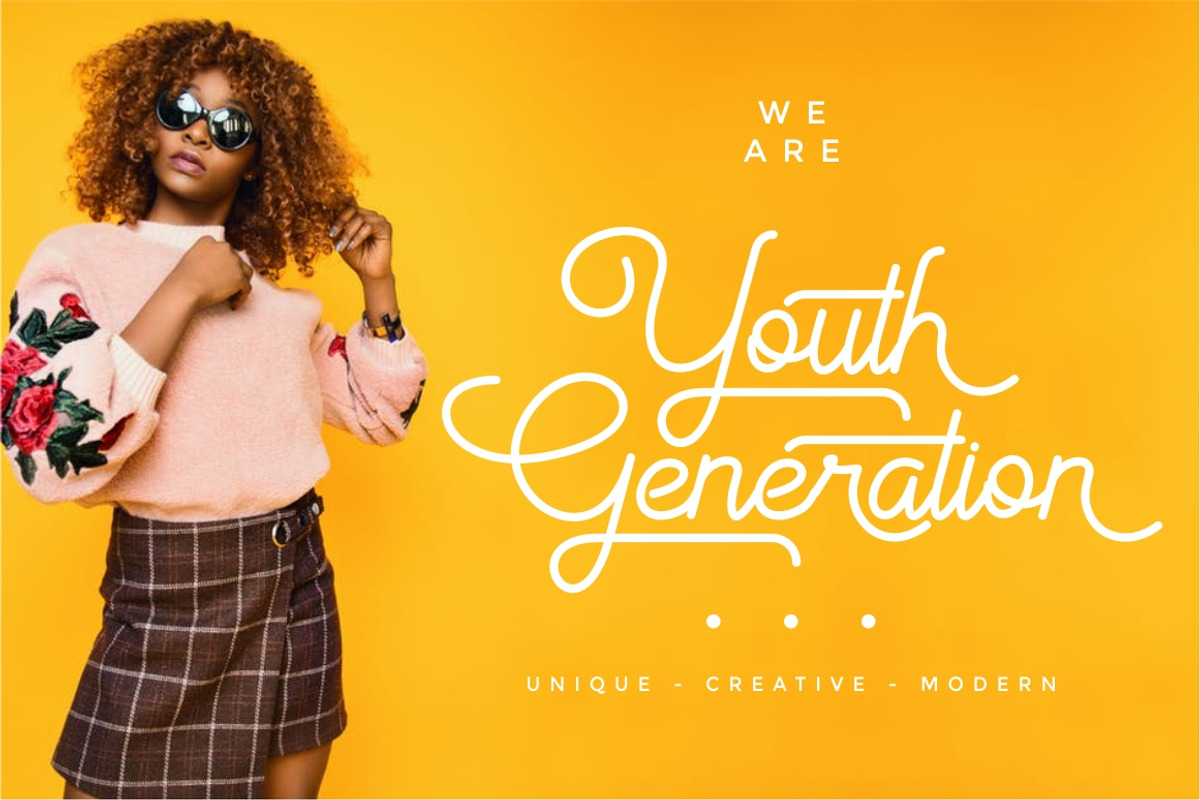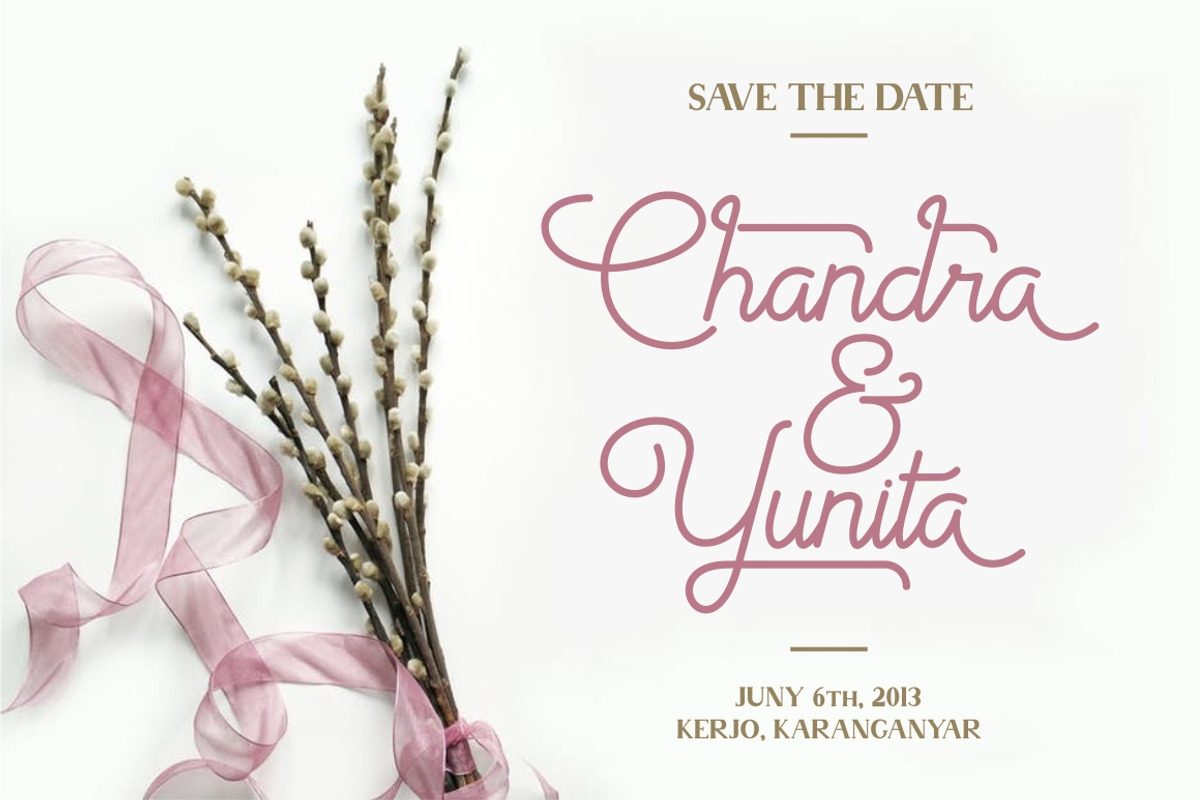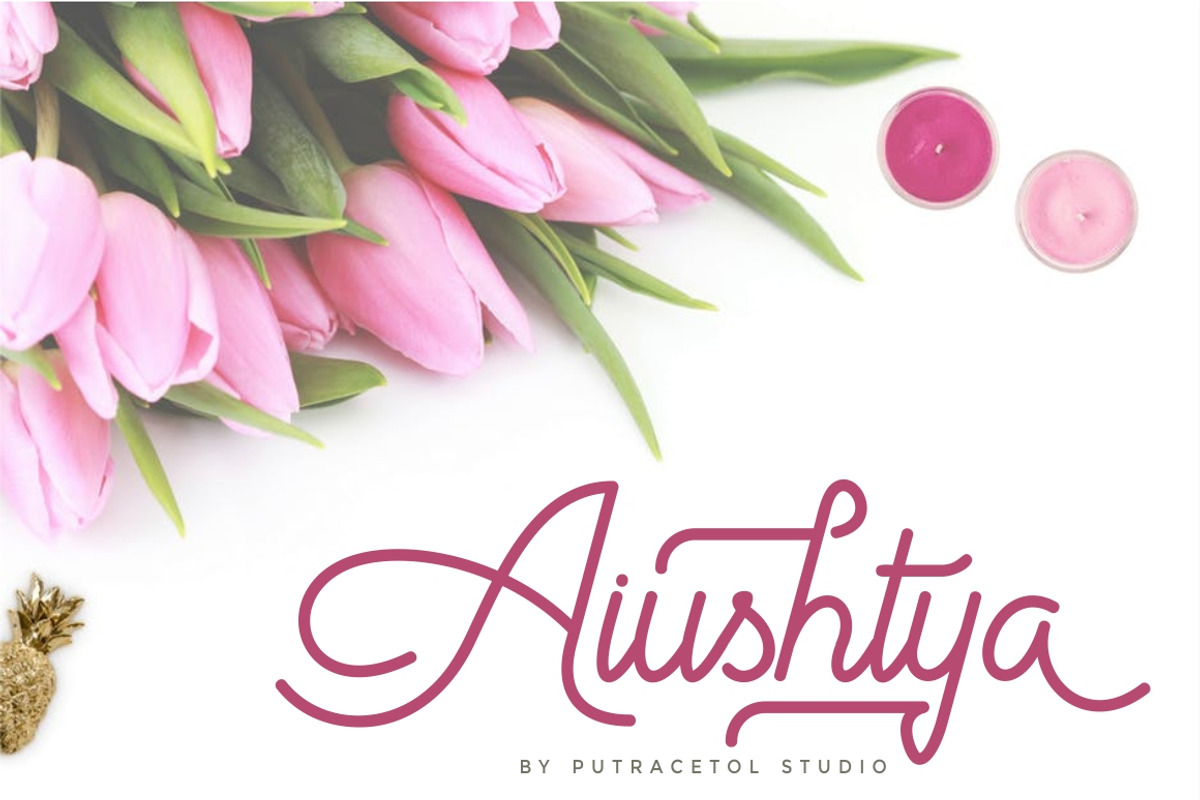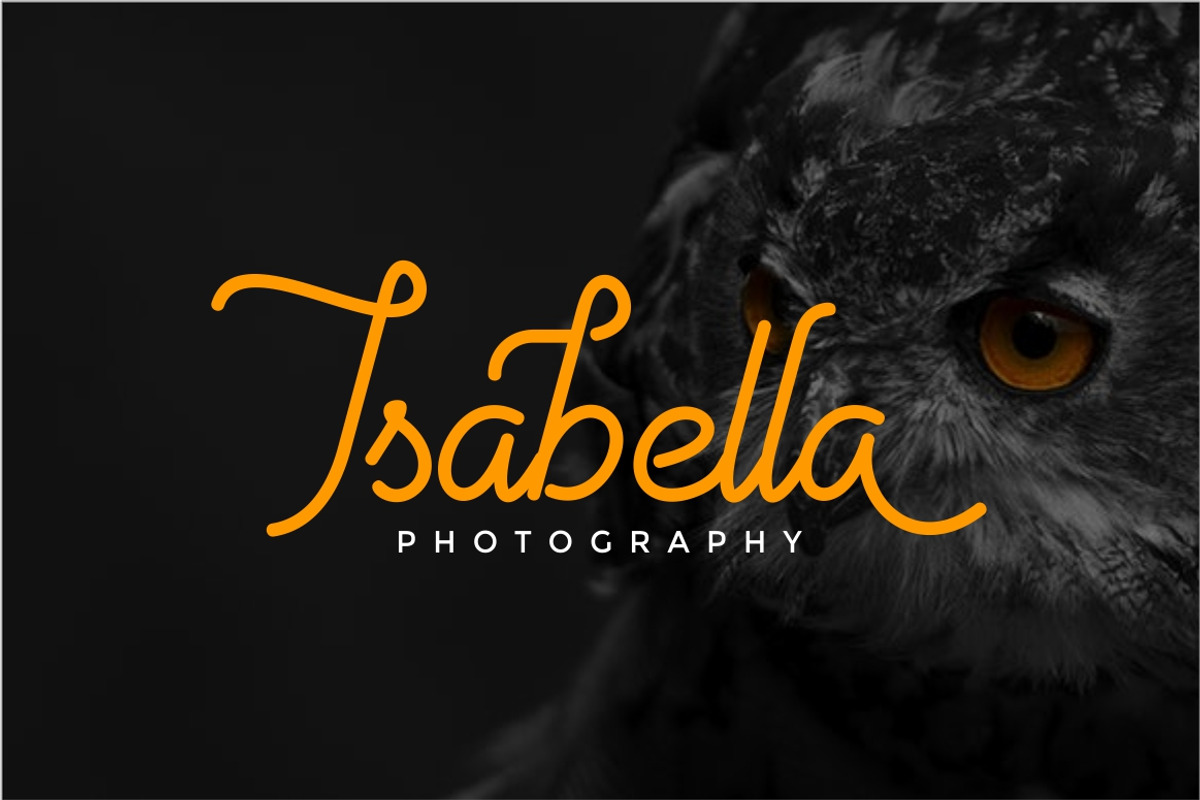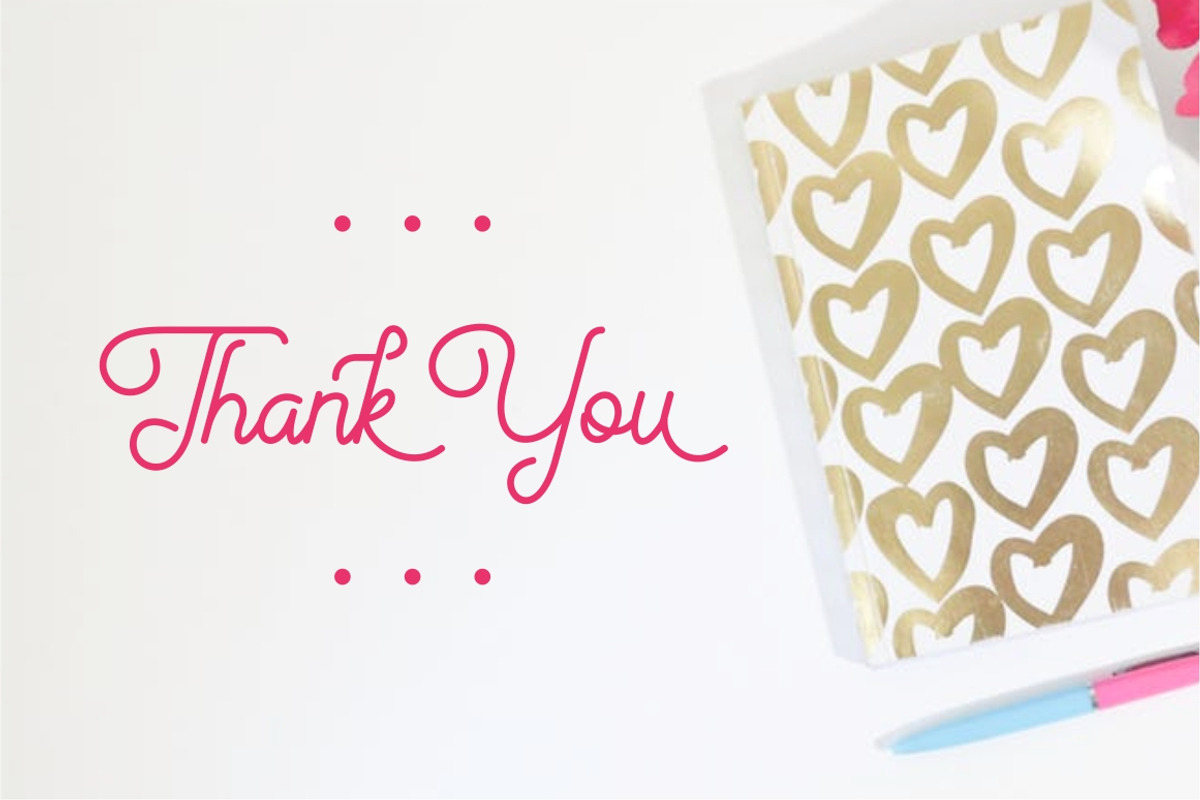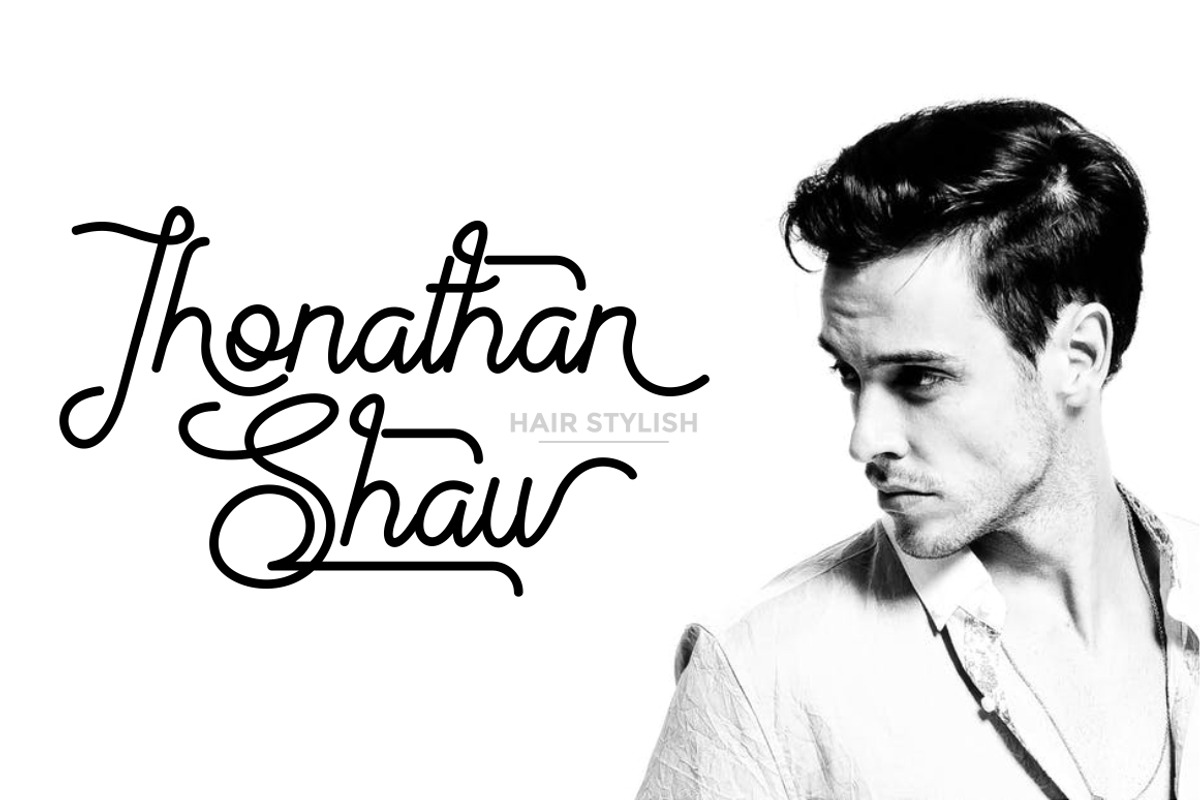
Aiushtya Font
Aiushtya is a monoline script typeface with smooth charaters but still elegant and modern. Aiushtya is suitable for logos, signature, tagline, Tshirt, handwritten quotes, product packaging, poster, merchandise, social media, labels, branding, greeting cards, etc.
Why Aiushtya Font is worth a look
Aiushtya Font by PutraCetol Studio fits naturally into Branding, posters, packaging, typography.